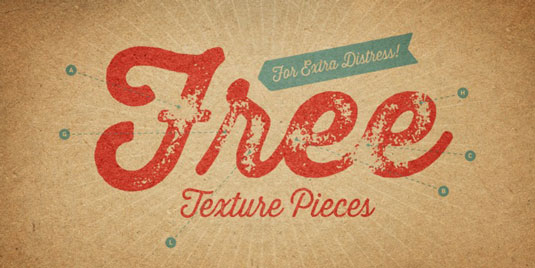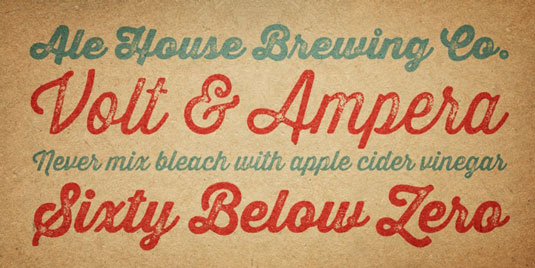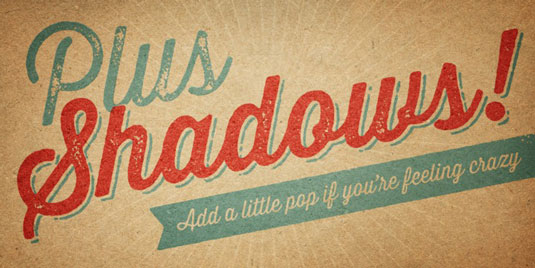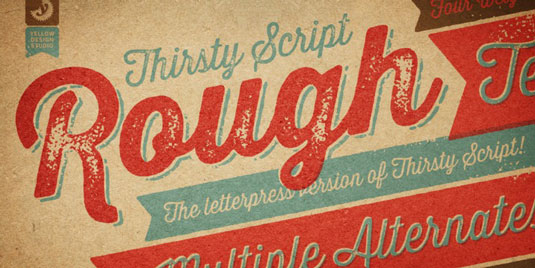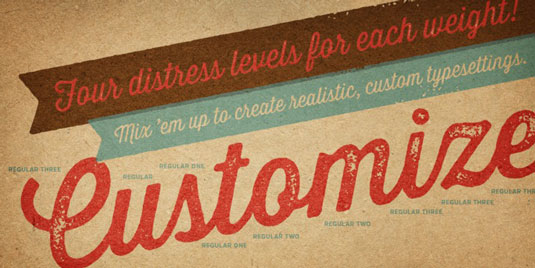
Font of the day: Thirsty Rough
Thirsty Rough by Yellow Design Studio
Today's font of choice is Thirsty Rough by Yellow Design Studio, a fine art, graphic design and typography studio based in Wisconsin. The team describe the font as: "the warm and weathered version of Thirsty Script with texture that captures the authentic qualities of letterpress printing. It's highly customizable with four alternate versions of every weight ranging from very light to heavy distress.
"Because it's remarkably detailed, it looks great even at large sizes. For extra customization and fun, it includes a set of matching texture pieces…for free!"